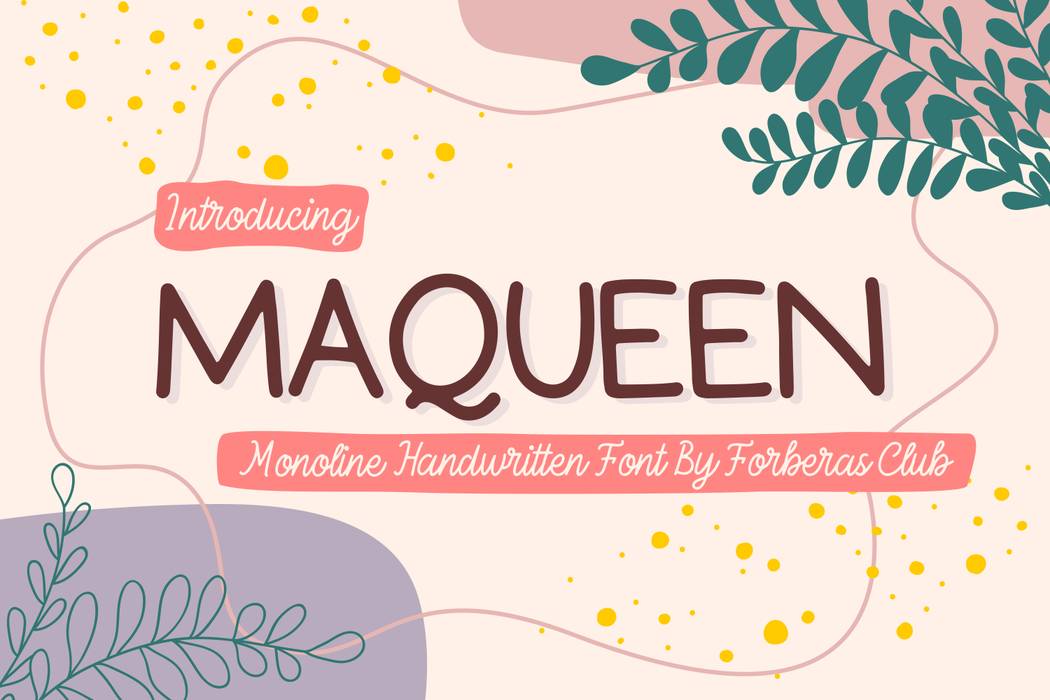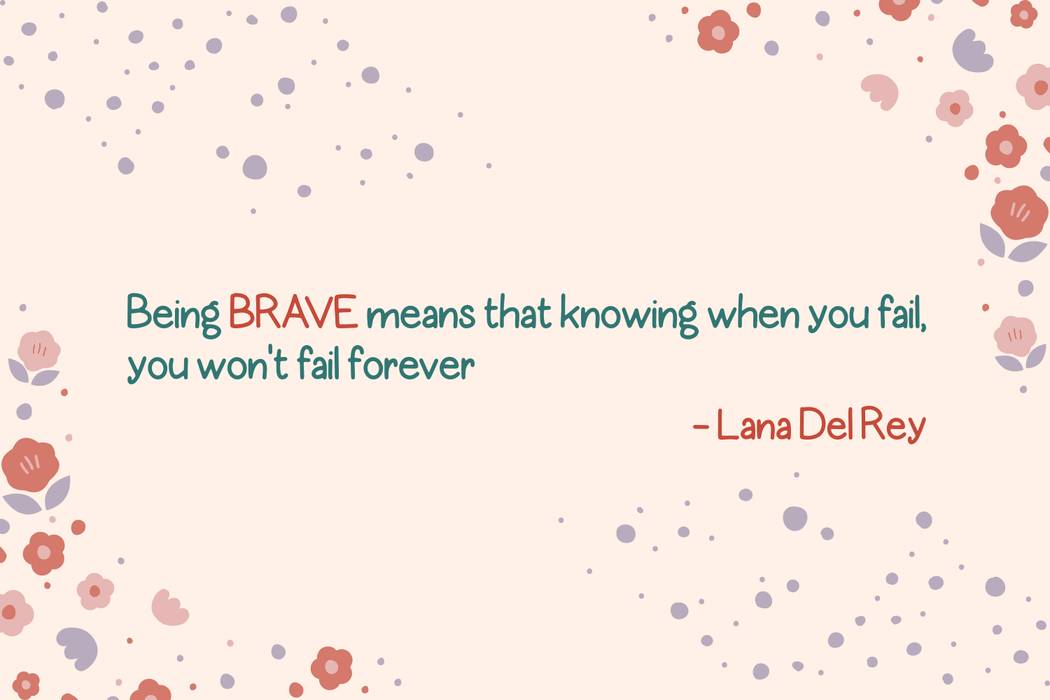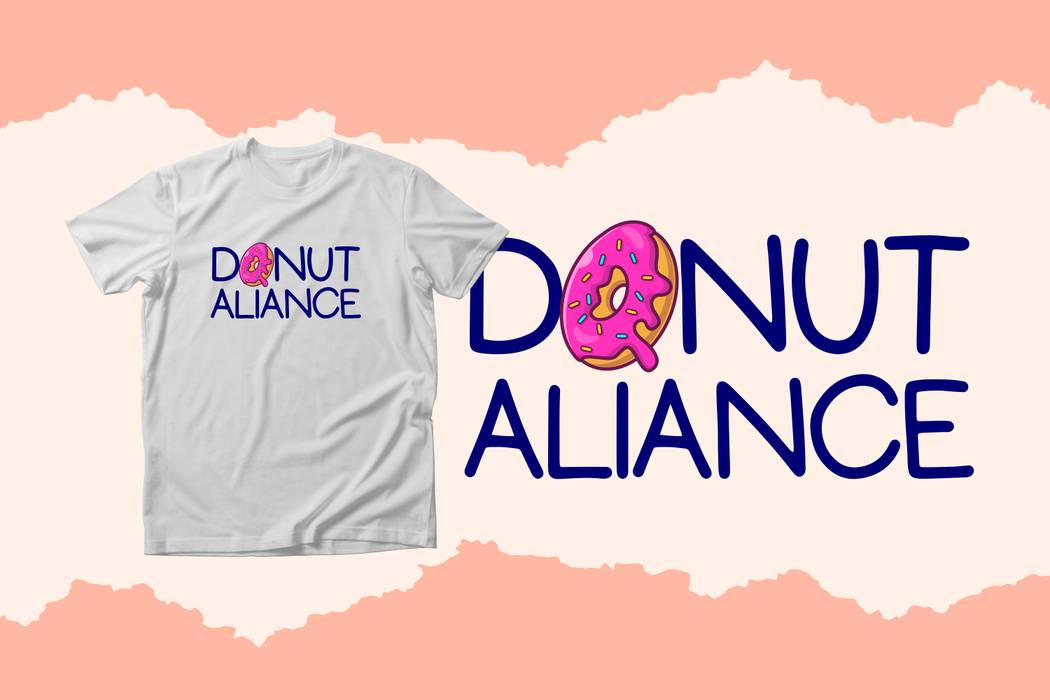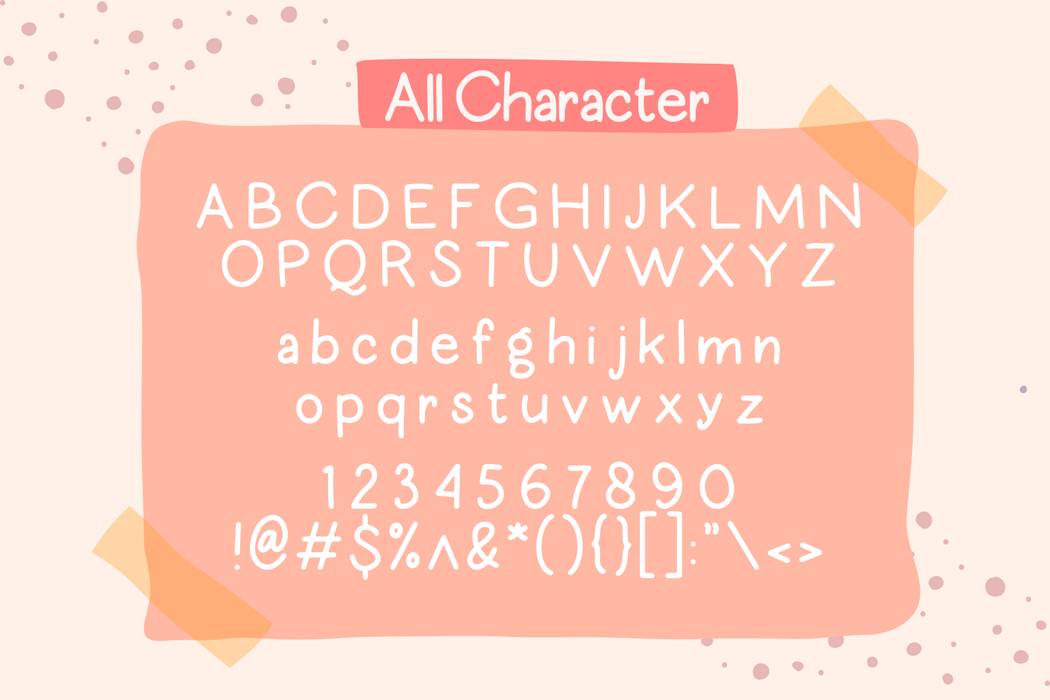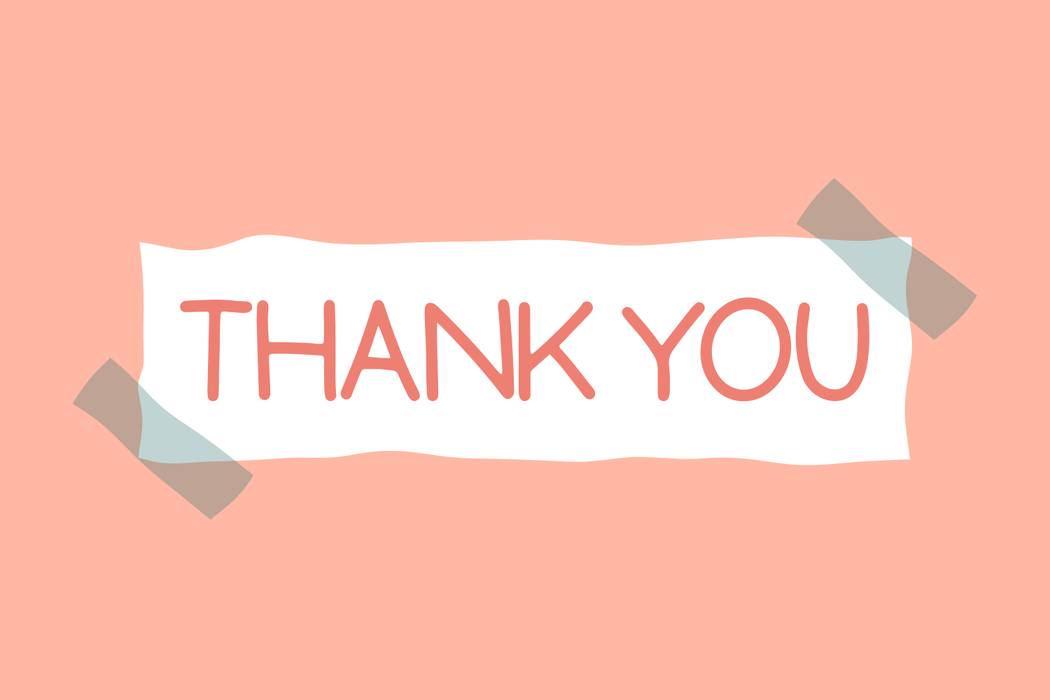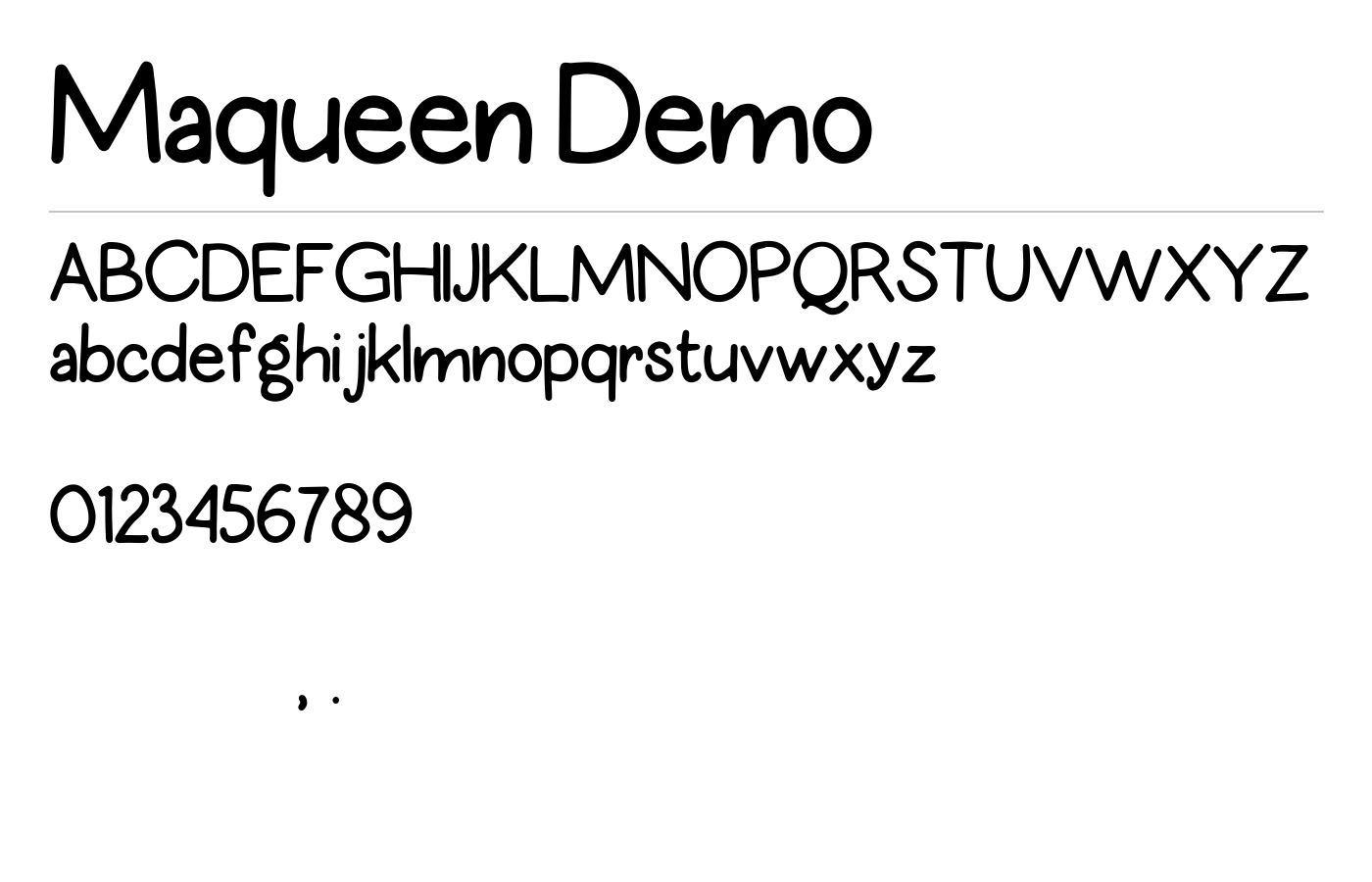
Maqueen is a charming, casual sans serif font with a playful, hand-drawn style featuring rounded edges and slightly irregular letterforms that add personality and warmth. Its medium weight and normal width make it highly readable while maintaining an approachable, friendly feel, perfect for projects that want to communicate creativity and informality. This font is ideal for informal branding, children’s materials, and creative digital content where a personal, inviting tone is desired.
Maqueen Font
About Maqueen Font
| Designer | Forberas Club |